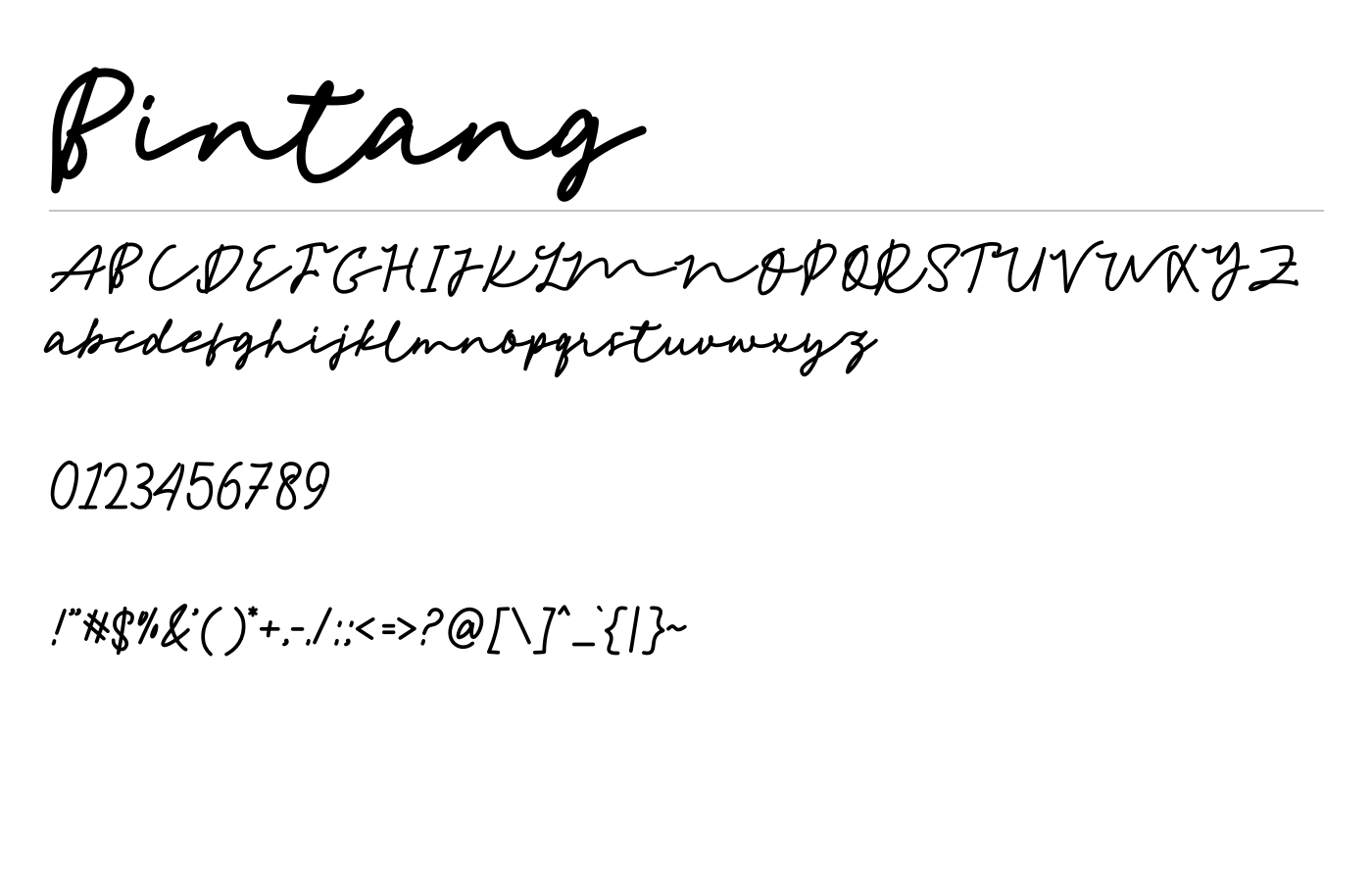
Bintang is a casual script font with a light, flowing stroke that mimics natural handwriting. Its slender, slightly slanted letterforms and delicate curves give it a relaxed and personal feel, making it ideal for invitations, personal branding, and creative projects that want a warm, approachable touch. This font works beautifully in designs that need an informal yet elegant handwritten style.
Bintang Font
About Bintang Font